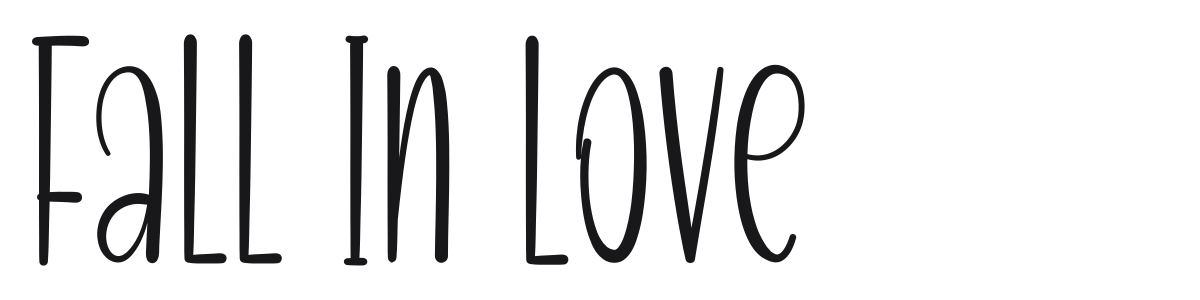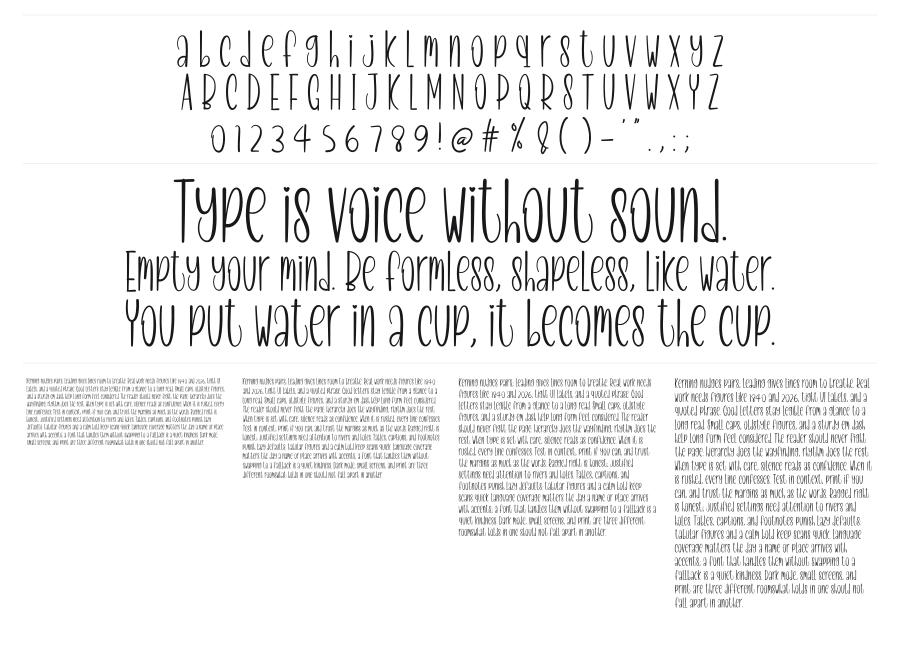
Fall In Love
Fall In Love is a tall, upright handwritten font with a playful, pen-lettered feel and small romantic flourishes. The narrow proportions and monoweight strokes give it a clean silhouette while keeping the casual warmth of hand lettering. Small details like a heart accent tip it firmly into romantic territory.